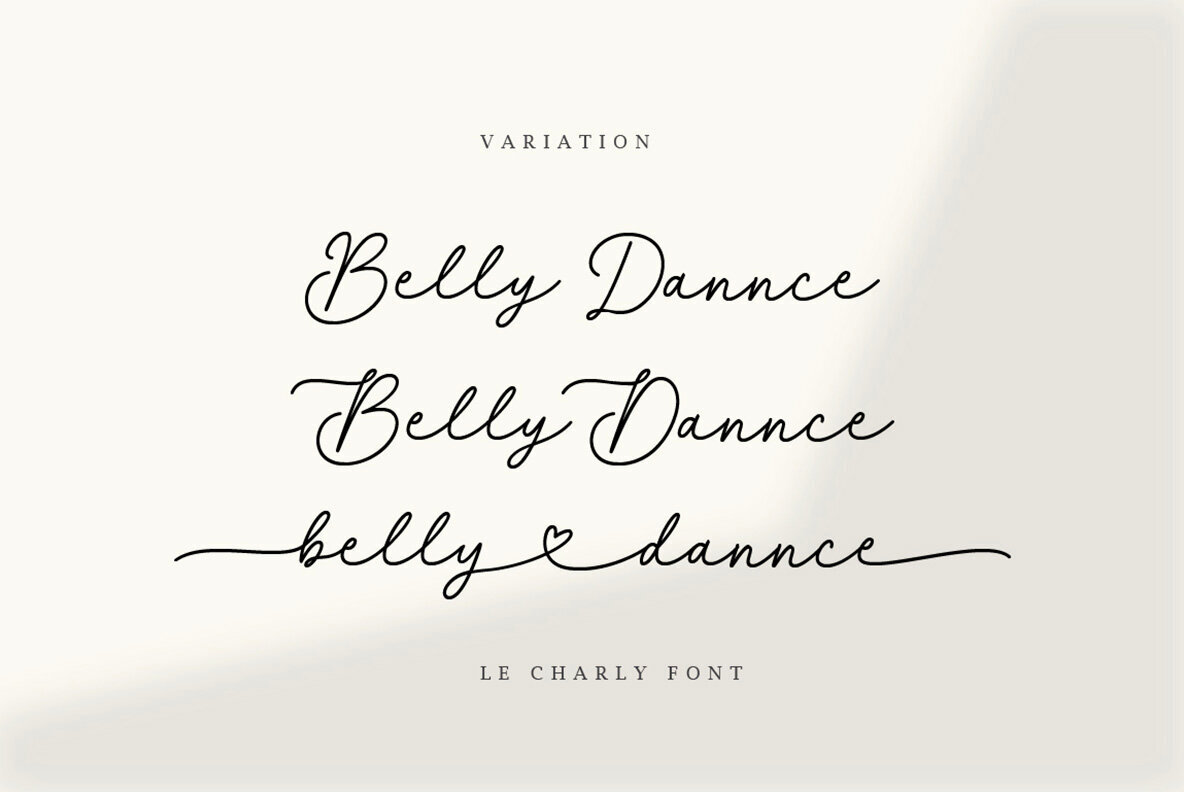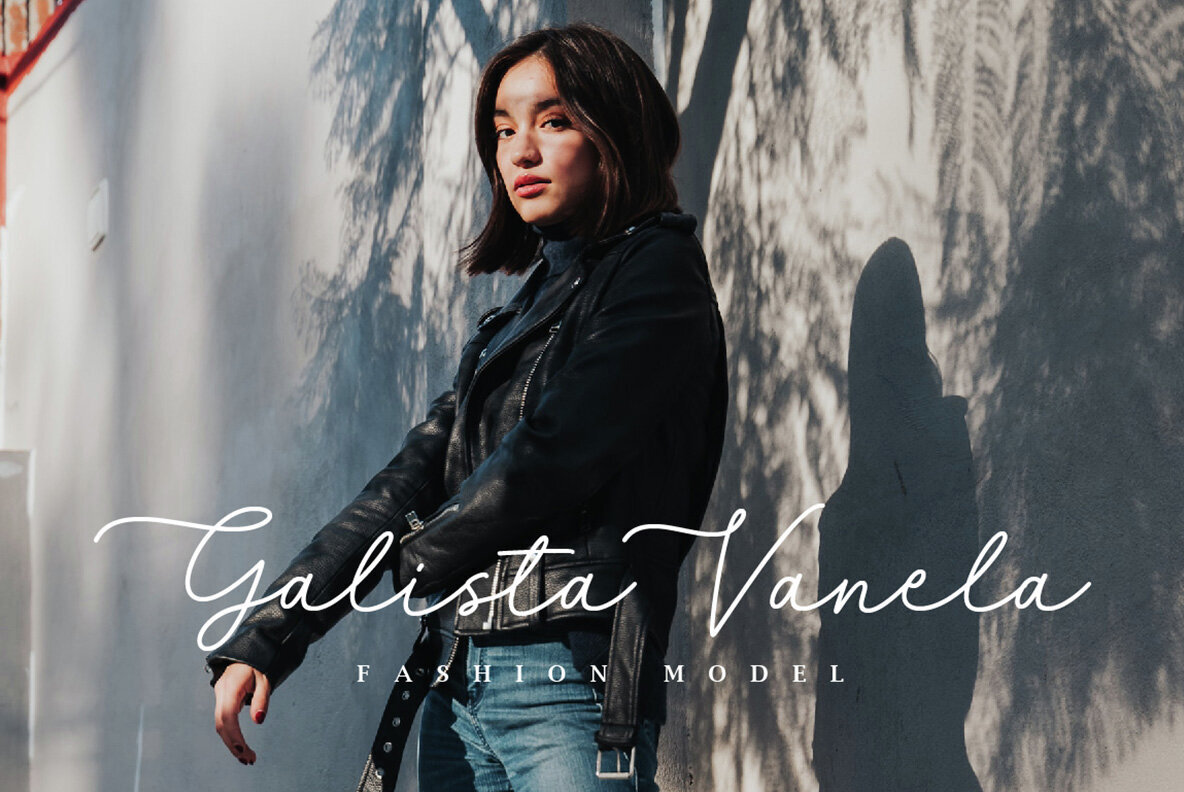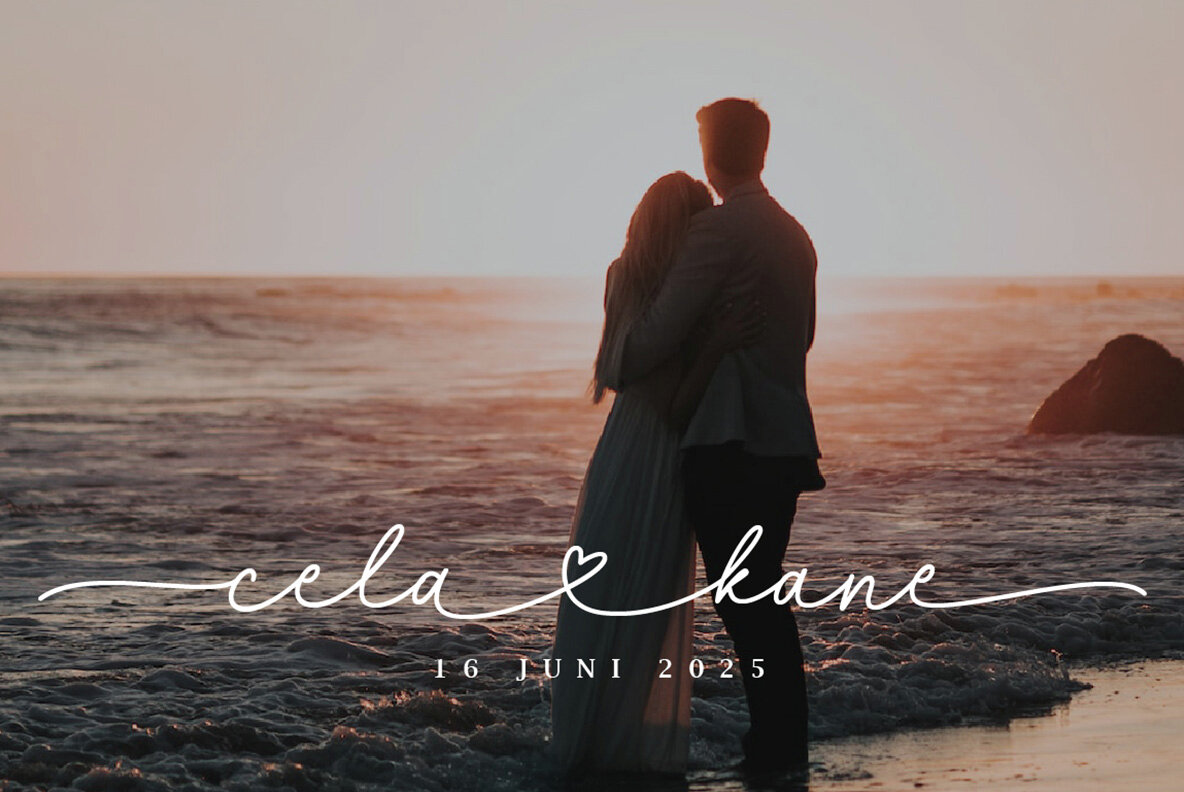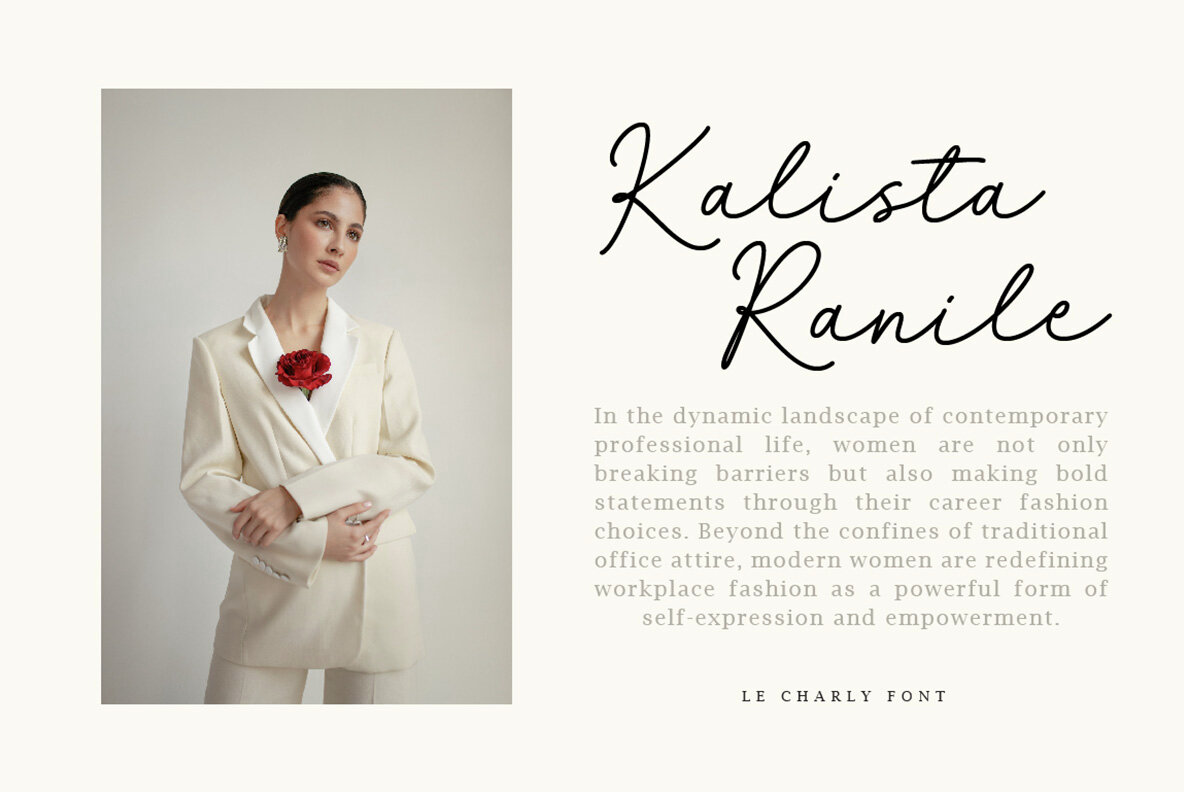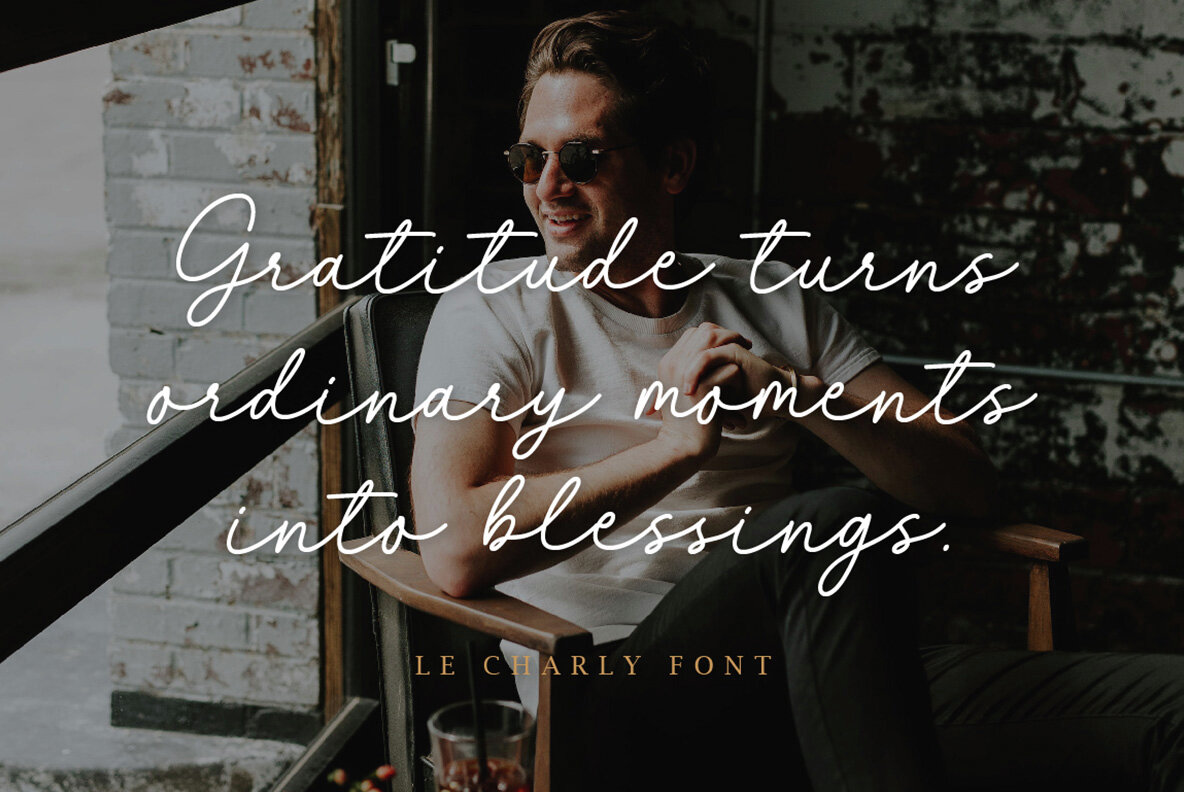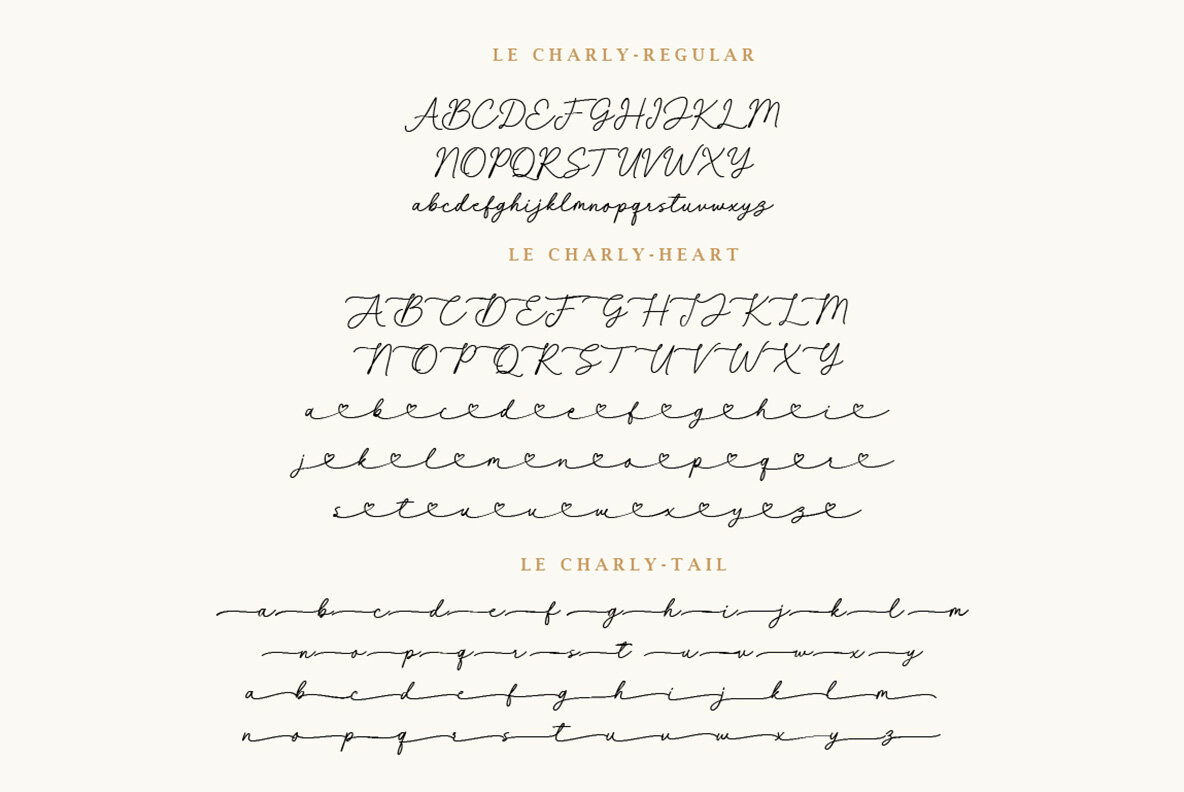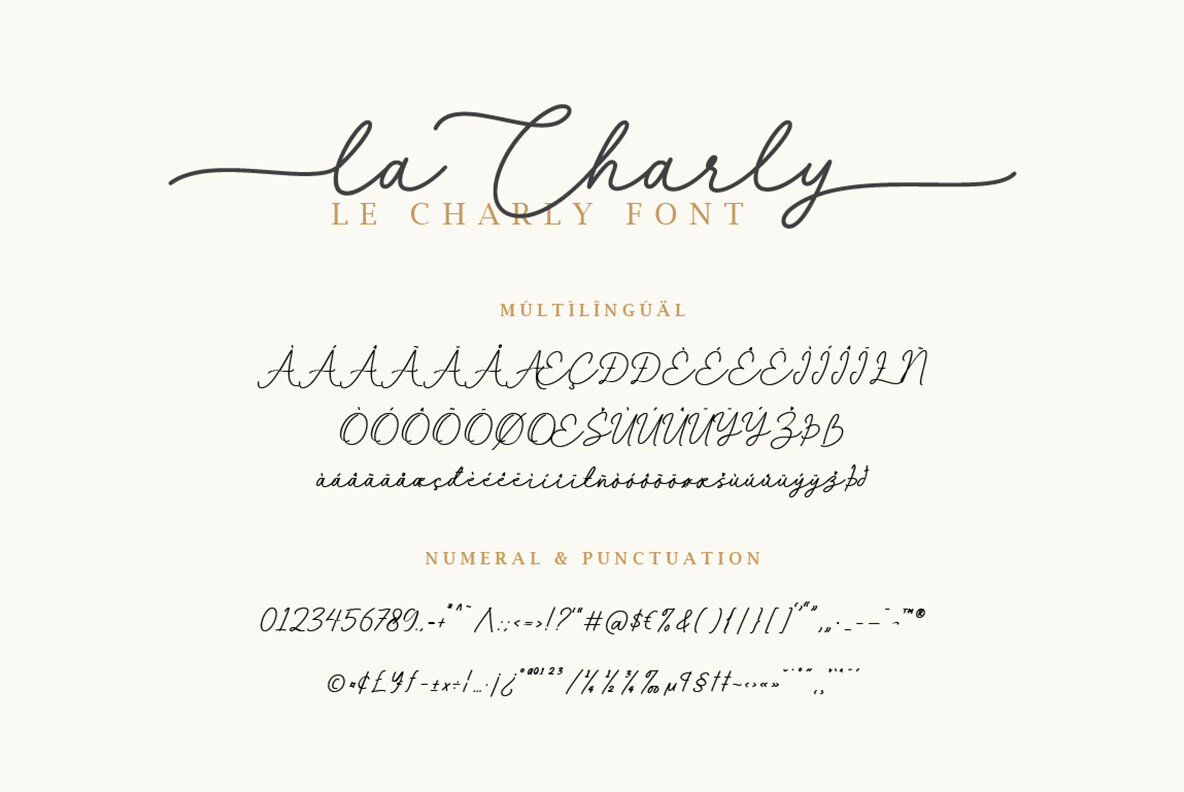
La Charly Font
La Charly is an exquisite handwritten script font that exudes elegance and charm. This font is characterized by captivating letter alternates and enchanting tails that begin and end each stroke. Its unique feature, a heart-shaped connecting tail, adds a touch of romance to your designs. La Charly simplifies your design process with its separate components. You can easily use alternates, heart connectors, and swashes without the need for OpenType-supporting software. La Charly includes the following features for enhanced creativity:La Charly: Delicate Handwritten Script
Easy-to-Use Alternates